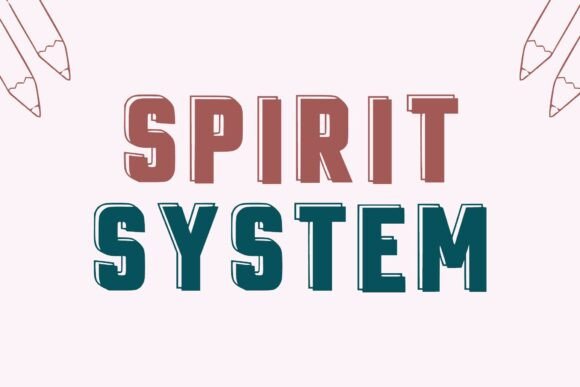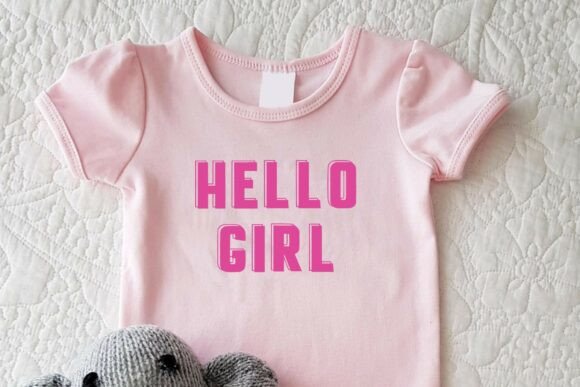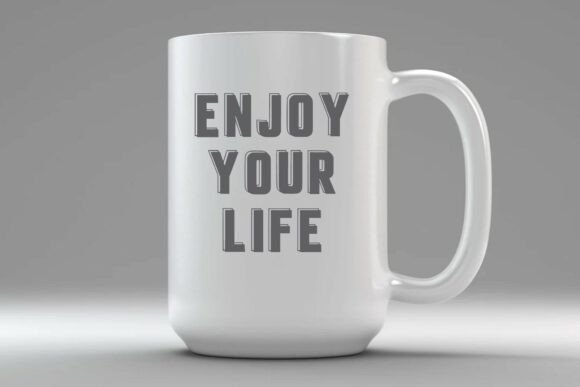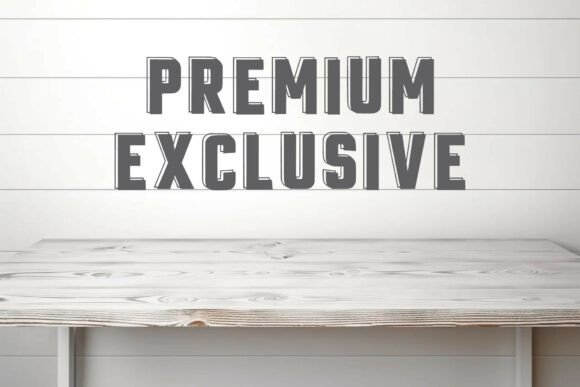
Introduction to Homeschool Regular Font
Remember that moment when you’re brainstorming ideas for a new creative project, and you stumble upon the perfect font to bring it all together? It’s like the missing piece of a puzzle – everything falls into place, and your design starts to shine. For many designers, that moment often comes when they discover a font that perfectly captures the essence of their project. That’s exactly what the Homeschool Regular Font does – it adds a touch of warmth, playfulness, and sophistication to any design, making it a valuable addition to any creative toolkit.
As a design resource, the Homeschool Regular Font is a treasure trove of creative possibilities. With its clean and cheerful character design, it’s perfect for children-themed projects, educational printables, and storybooks. Whether you’re creating posters, classroom decor, or playful branding, this font brings a joyful energy that elevates your designs and makes them stand out. And the best part? You can download it for free, making it a high-quality design resource that’s accessible to everyone.
Key Features of Homeschool Regular Font
- Features a clean and modern design, making it suitable for a variety of applications, from educational materials to marketing campaigns.
Honest Review: Homeschool Regular Font
I recently stumbled upon the Homeschool Regular Font, and I’m excited to share my thoughts on this design resource. As a designer, I’m always on the lookout for high-quality fonts to enhance my creative projects.
What works well
- ✨ Clean and modern design aesthetic
- ✨ High quality, clear typography
- ⚠️ Limited character set, which may not be suitable for complex design projects
- ⚠️ Transparent background option not available, which may affect design flexibility
Overall, I’m impressed with the Homeschool Regular Font’s clean design and high-quality typography. While it may not be the most comprehensive font, it’s an excellent choice for designers looking for a simple, modern aesthetic. With its free download option and compatibility with various design software, it’s definitely worth considering for your next creative project.
Tips for Getting the Most Out of Homeschool Regular Font
To get the most out of the Homeschool Regular Font, use it with a transparent background to create a clean and modern design. Experiment with different font sizes, colors, and combinations to achieve the desired look for your project.
The Homeschool Regular Font is perfect for various creative projects, including social media graphics, blog posts, business reports, and educational materials. Its clean and simple design makes it an ideal choice for any project that requires a professional and approachable tone.